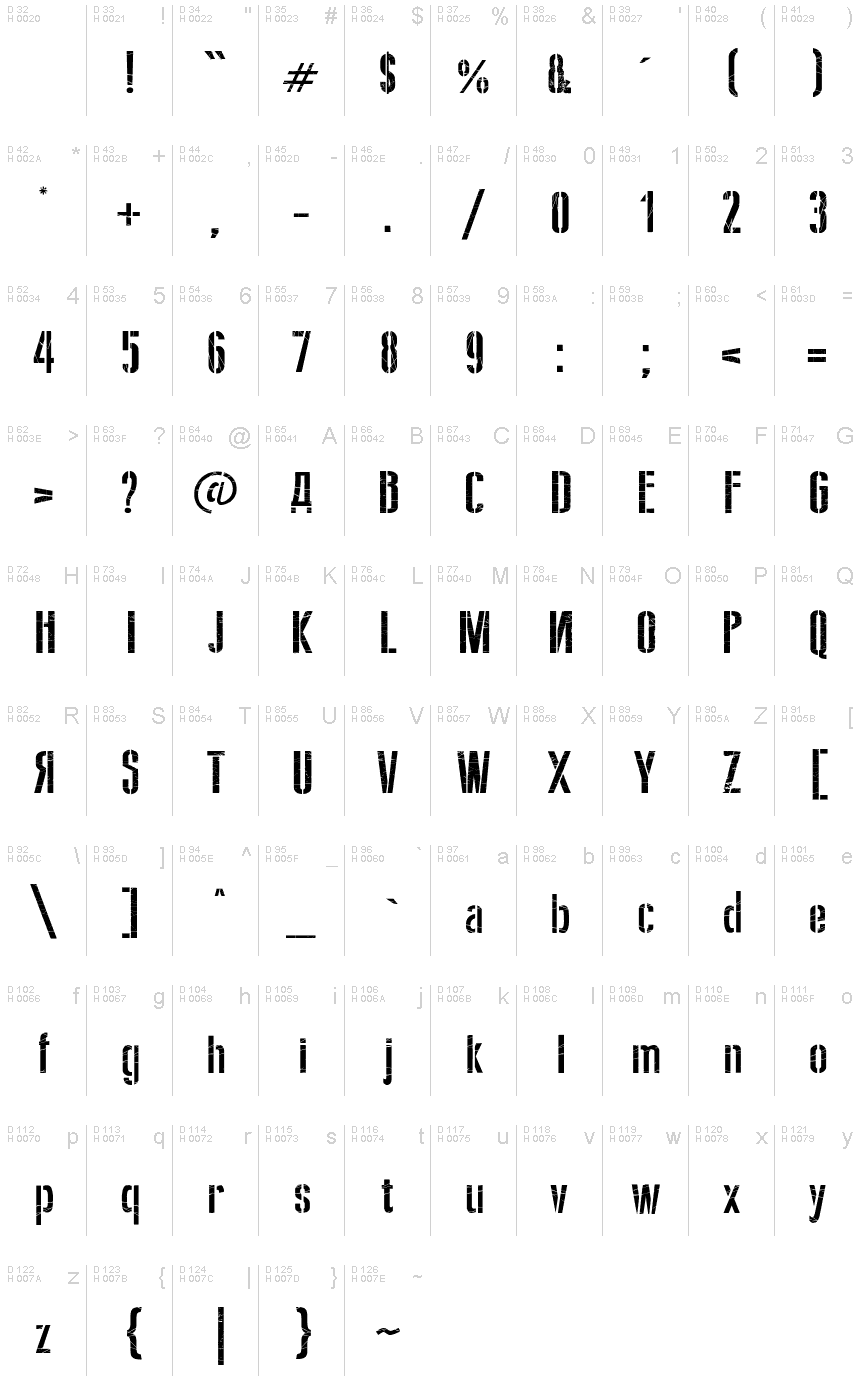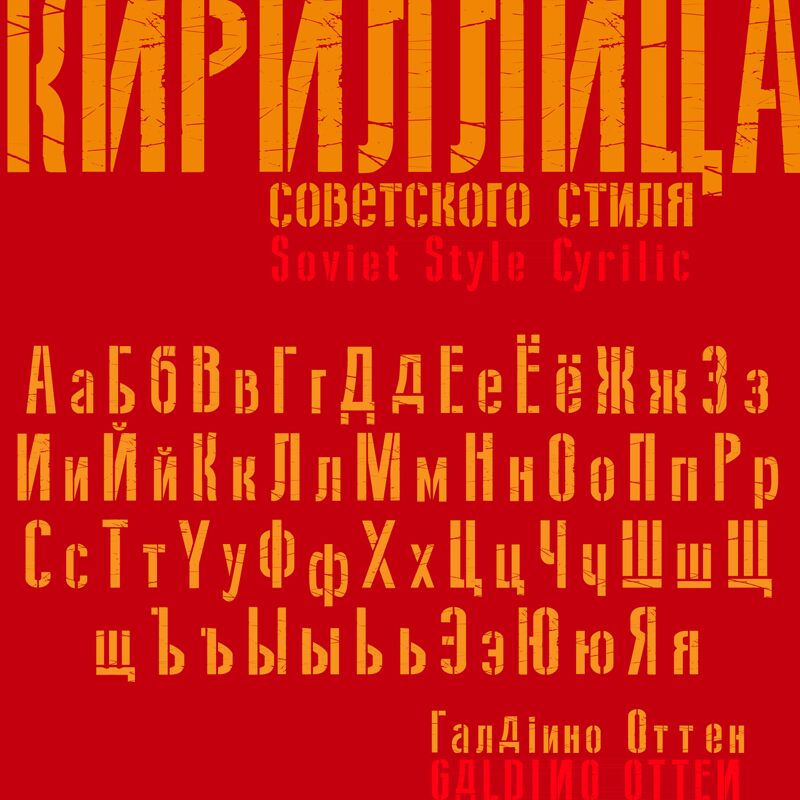
Soviet Style Cyrilic
Soviet Style Cyrilic, a display font designed by Galdino Otten, brings a touch of history and uniqueness to your projects. With its stencil style and semi-light weight, this font exudes an air of industrial strength and efficiency. Its extra-condensed width adds a modern twist, making it suitable for a range of projects.
Use it for military-themed designs, retro or vintage aesthetics, or to add a bold statement to your branding materials.
Soviet Style Cyrilic is the perfect choice when you want to make an impact with your typography.